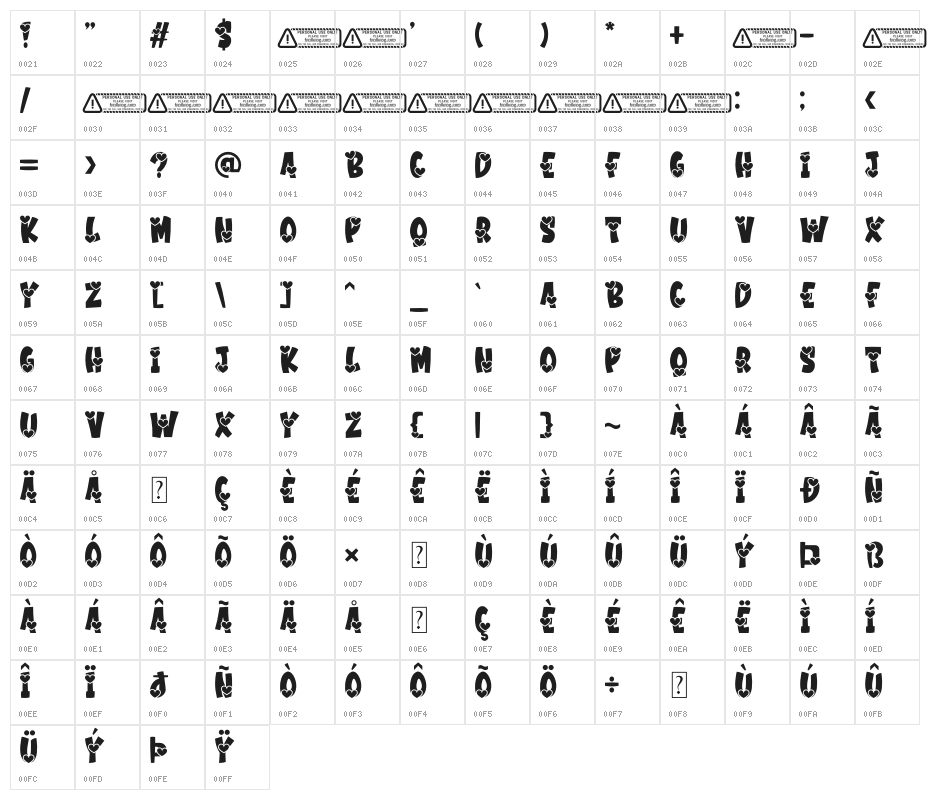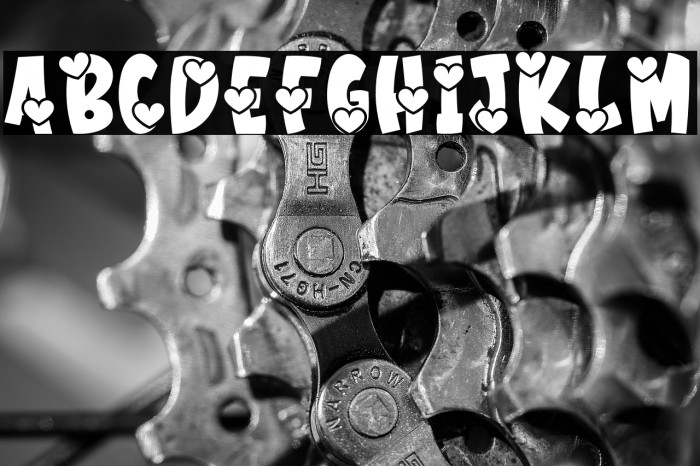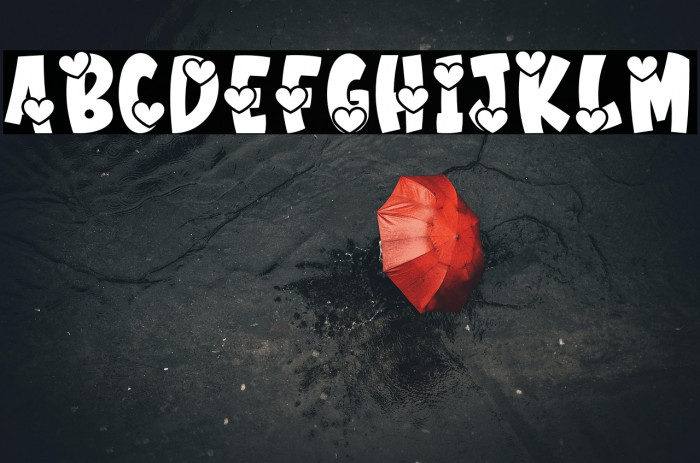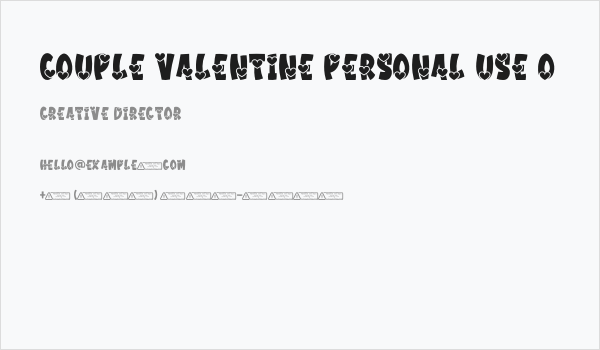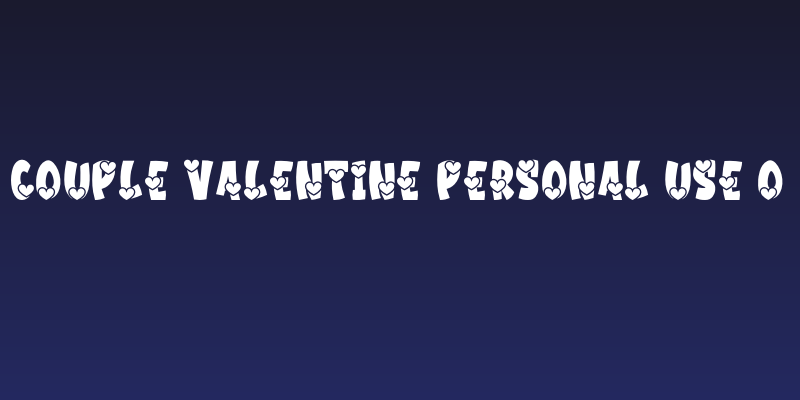
Couple Valentine PERSONAL USE O Font
Couple Valentine PERSONAL USE O Description
This playful and romantic font features bold, uppercase letters adorned with heart motifs, creating a whimsical and affectionate appearance. The characters are slightly irregular, adding a hand-drawn feel that enhances its charm. The font is perfect for projects that aim to convey love and warmth, such as Valentine's Day cards, wedding invitations, or romantic-themed designs. Its decorative style is eye-catching, making it suitable for headlines and short text rather than body copy. The inclusion of hearts within the letters adds a unique touch, making it stand out in any design.
| Proposed Projects | Valentine's Day cards, wedding invitations, romantic-themed posters, love letters. |